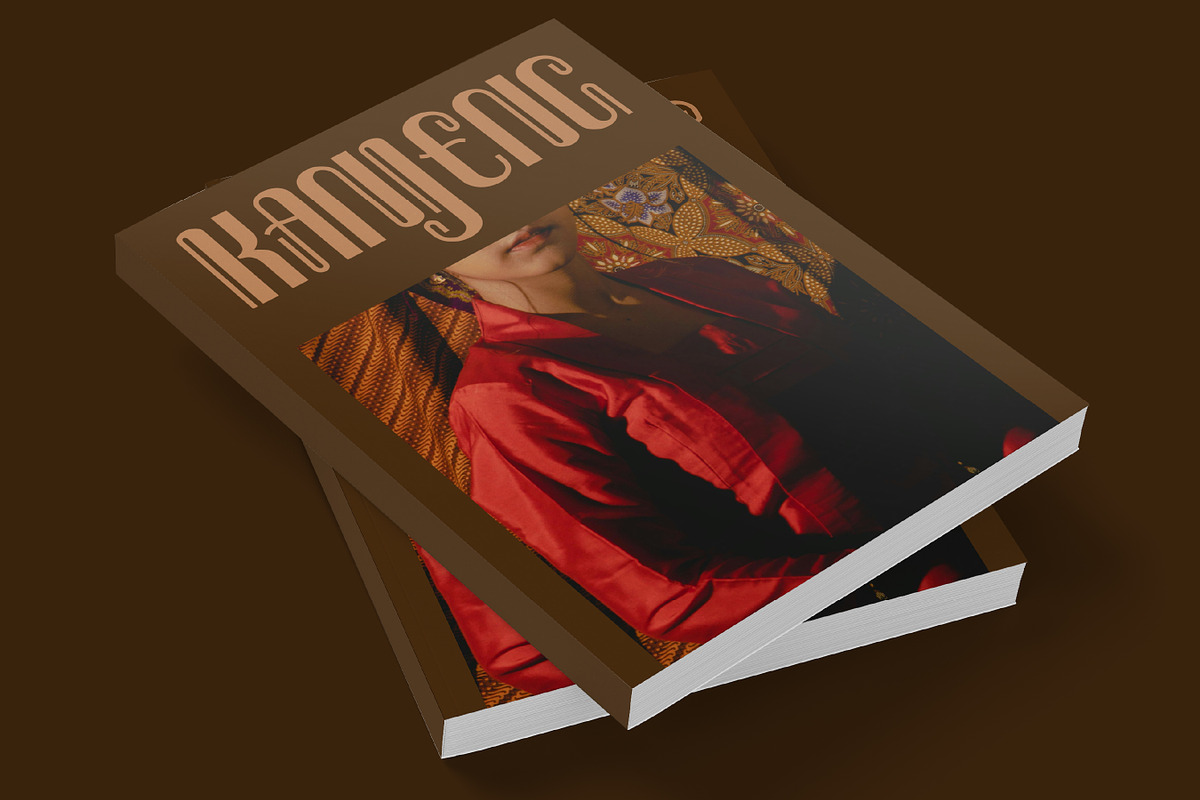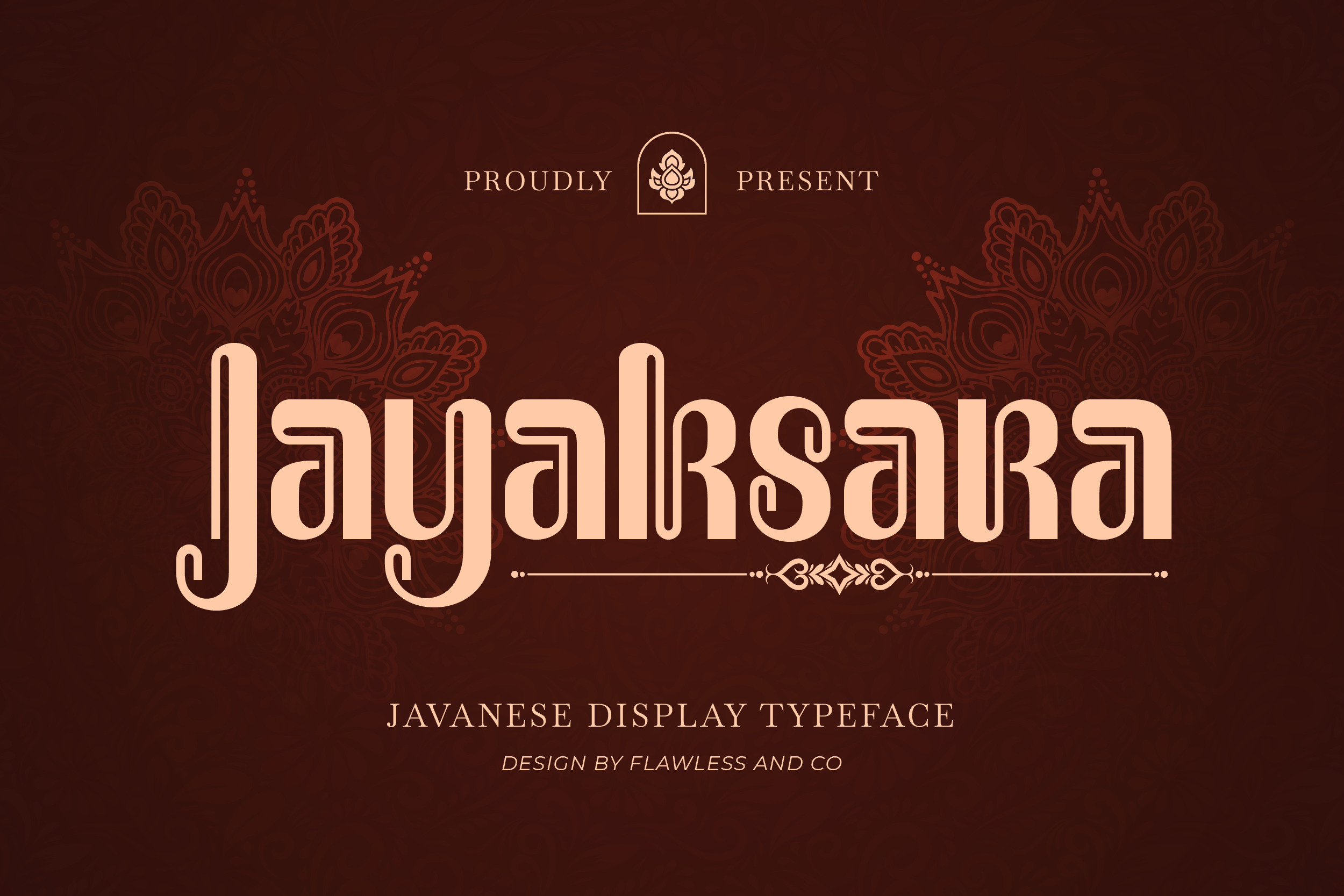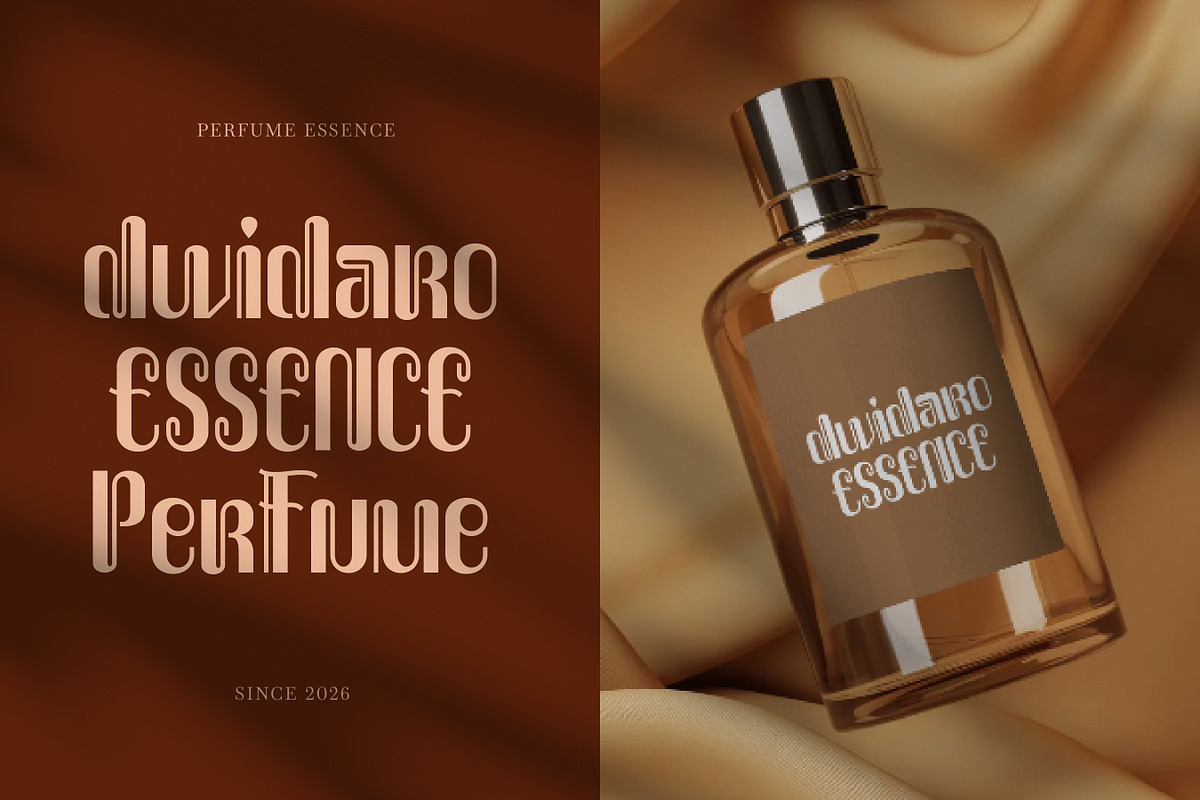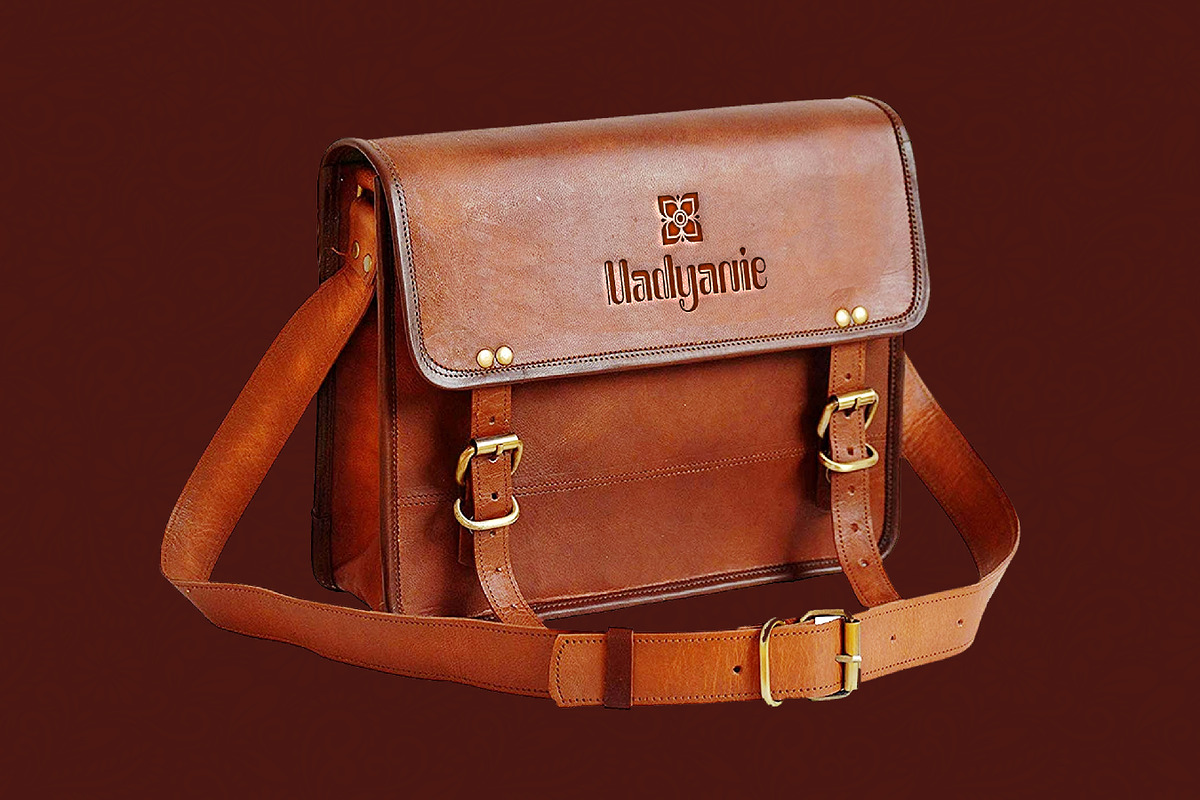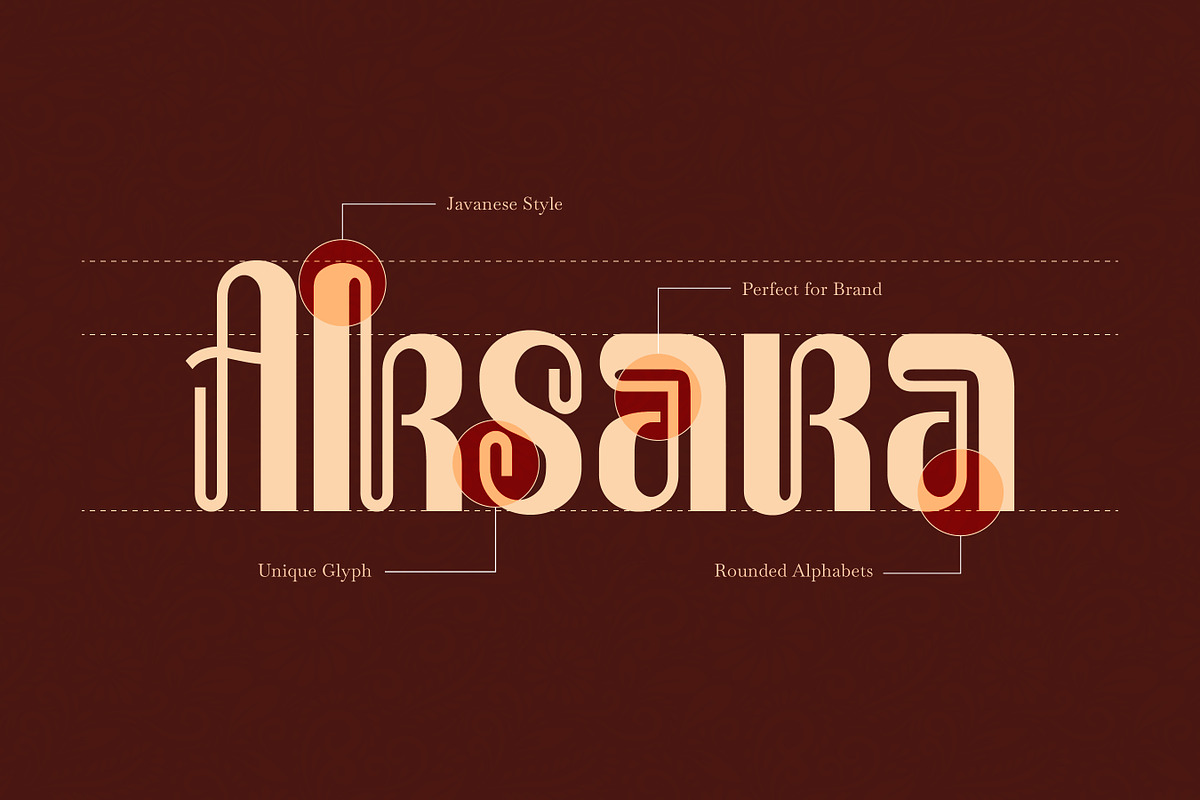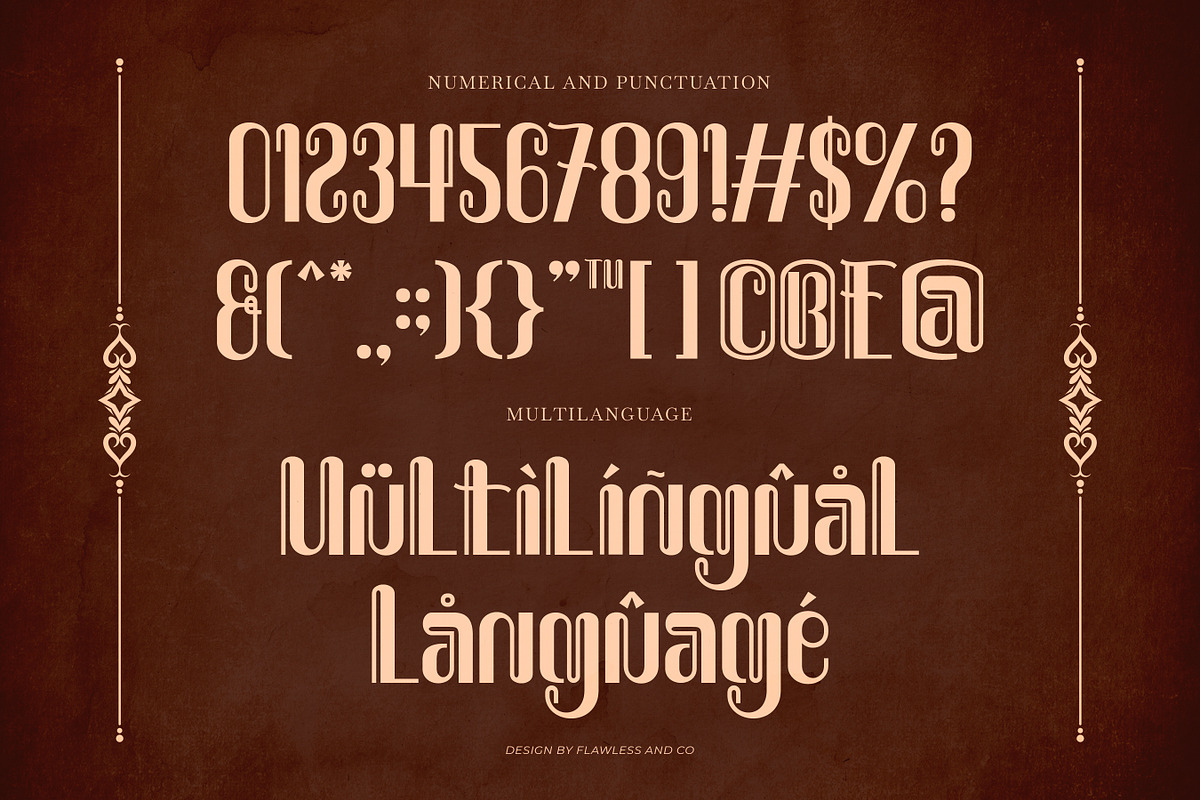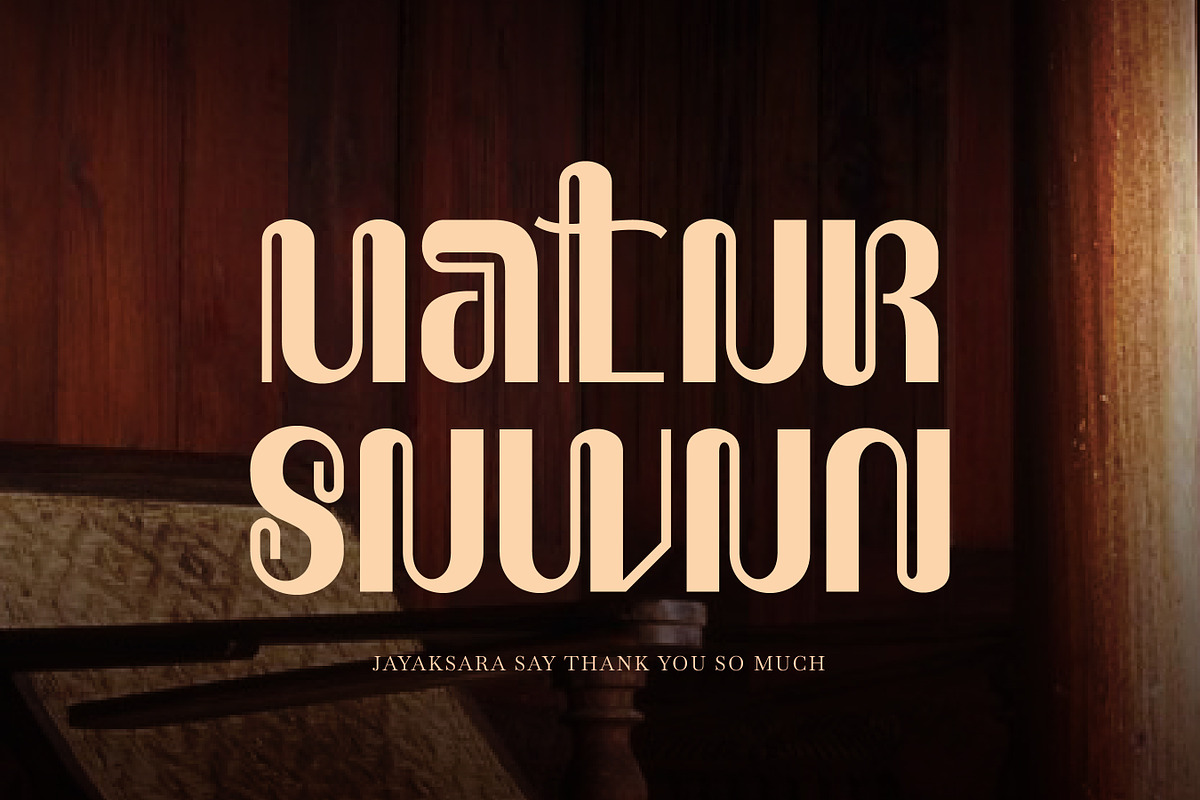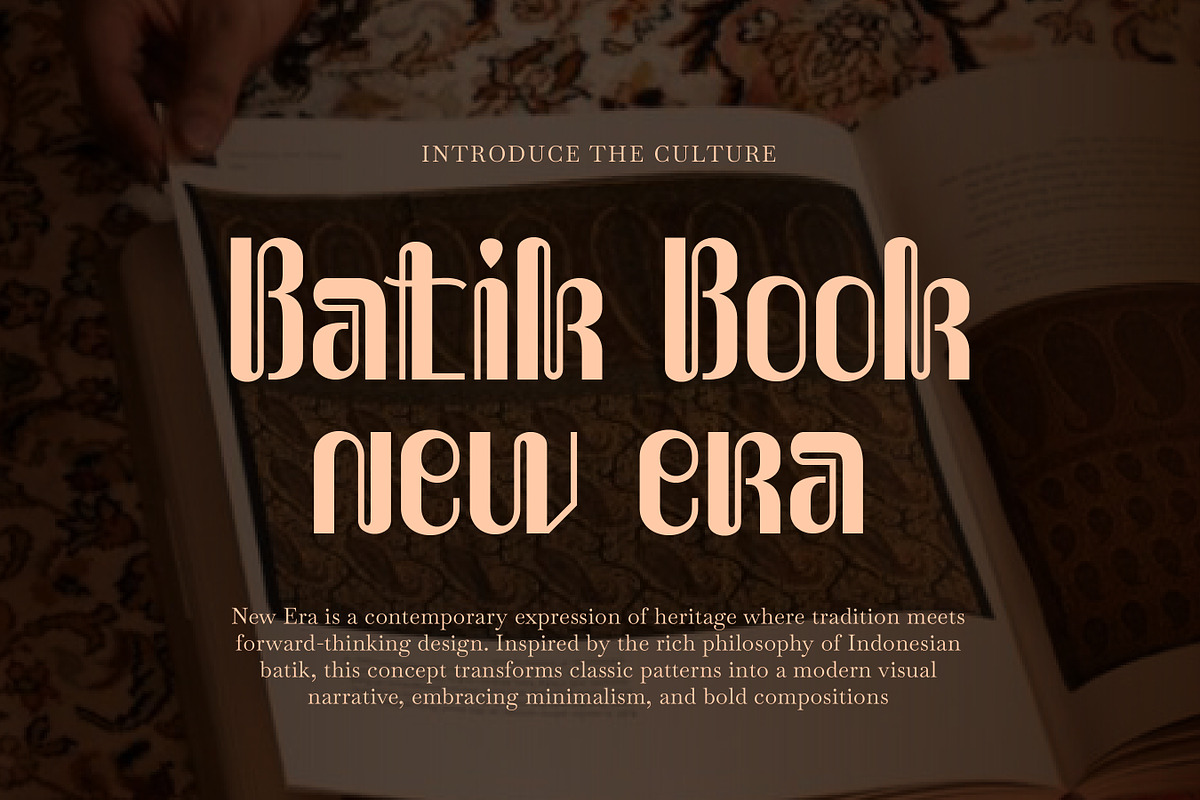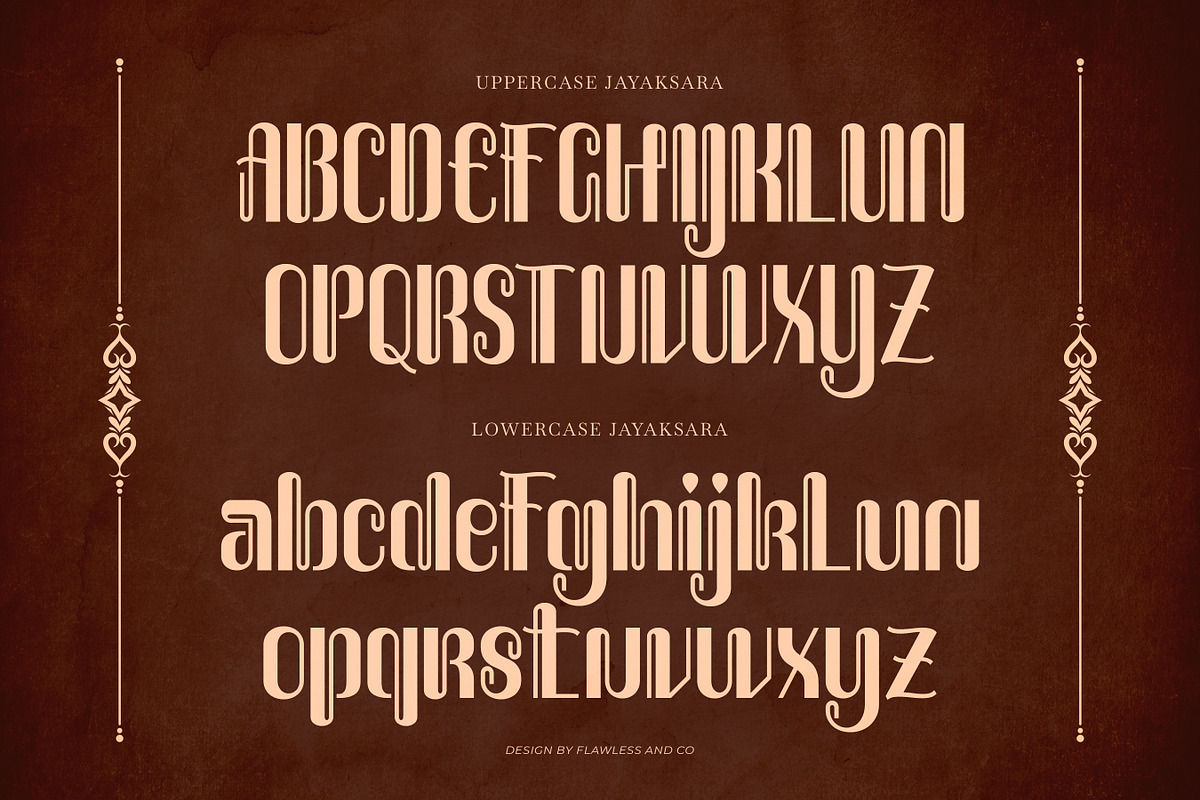
Jayaksara - Javanese Display Font
Jayaksara is a Javanese display font that brings the elegance of traditional script into a modern visual form. Inspired by the rich cultural heritage of Javanese lettering, Jayaksara features flowing curves, distinctive shapes, and decorative elements that create a unique and expressive typographic style. Crafted for display use, this font emphasizes artistic detail and cultural identity, making every word feel meaningful and visually captivating. Its ornamental character adds depth and authenticity, while the structured design keeps compositions balanced and appealing.
Who Should Use Jayaksara?
Jayaksara is ideal for creatives, designers, and brands looking to incorporate Javanese-inspired aesthetics into their projects. It’s especially suited for work that celebrates culture, artistry, and distinctive visual storytelling.
Suitable For:
- Cultural and traditional branding
- Festival and event design
- Posters and artistic headlines
- Packaging and product labels
- Tourism and heritage visuals
- Social media content
- Editorial and creative layouts
- Decorative typography projects